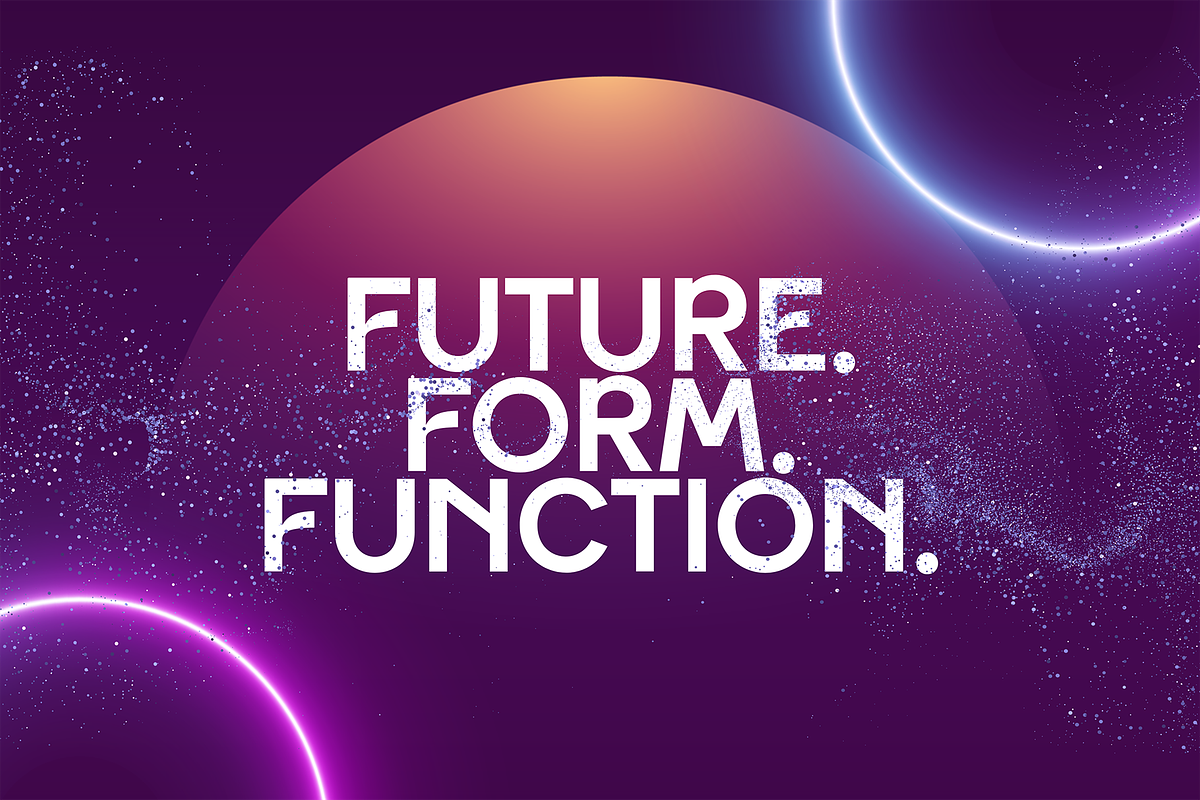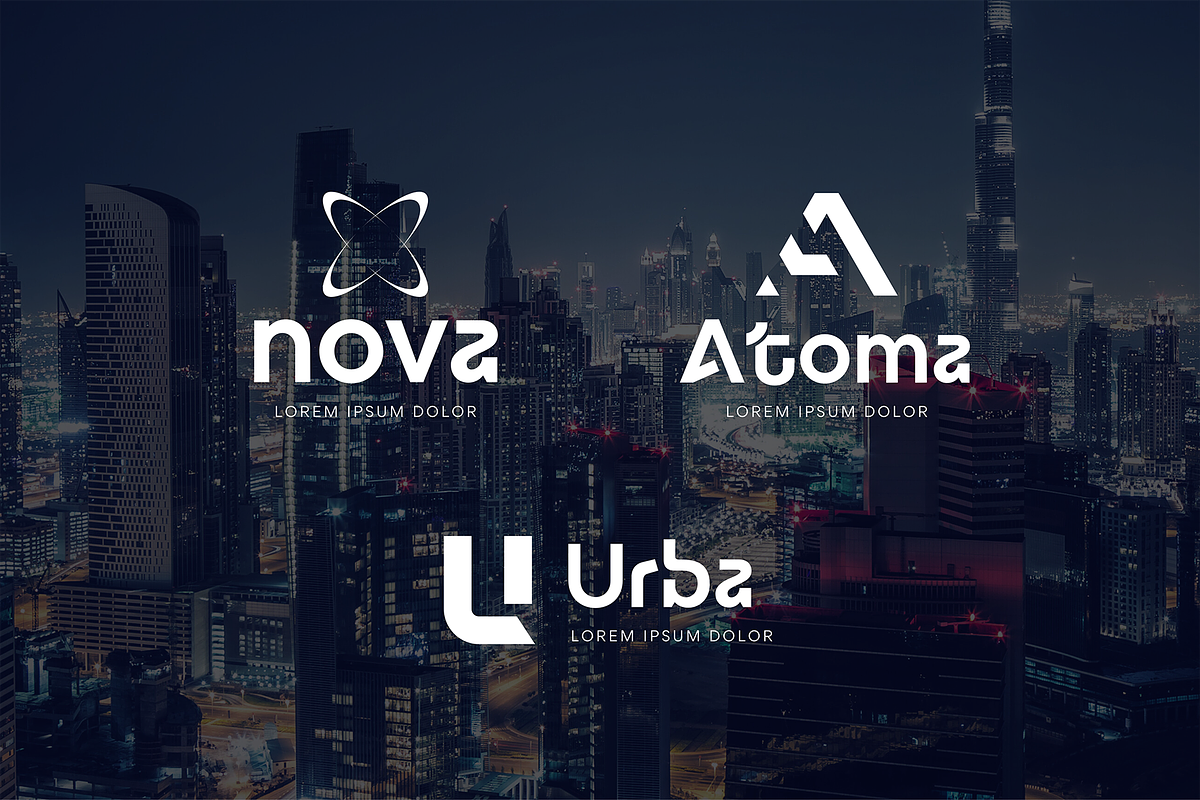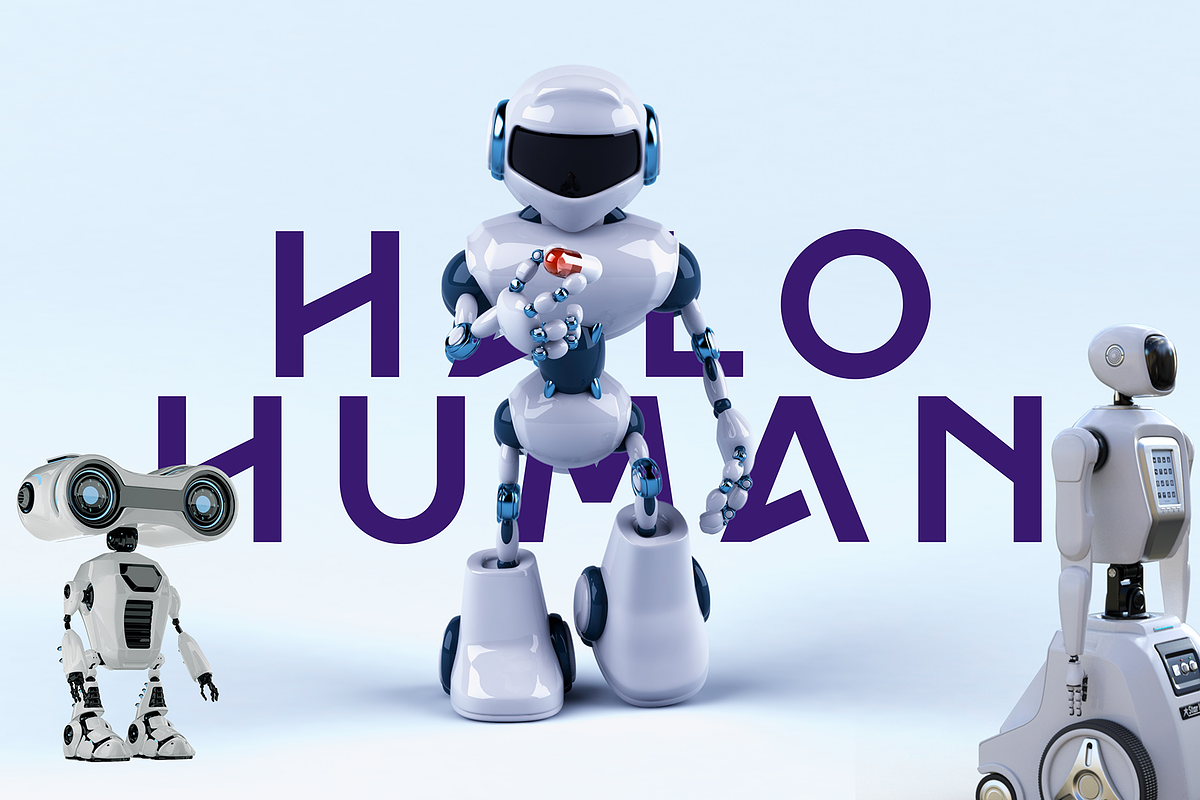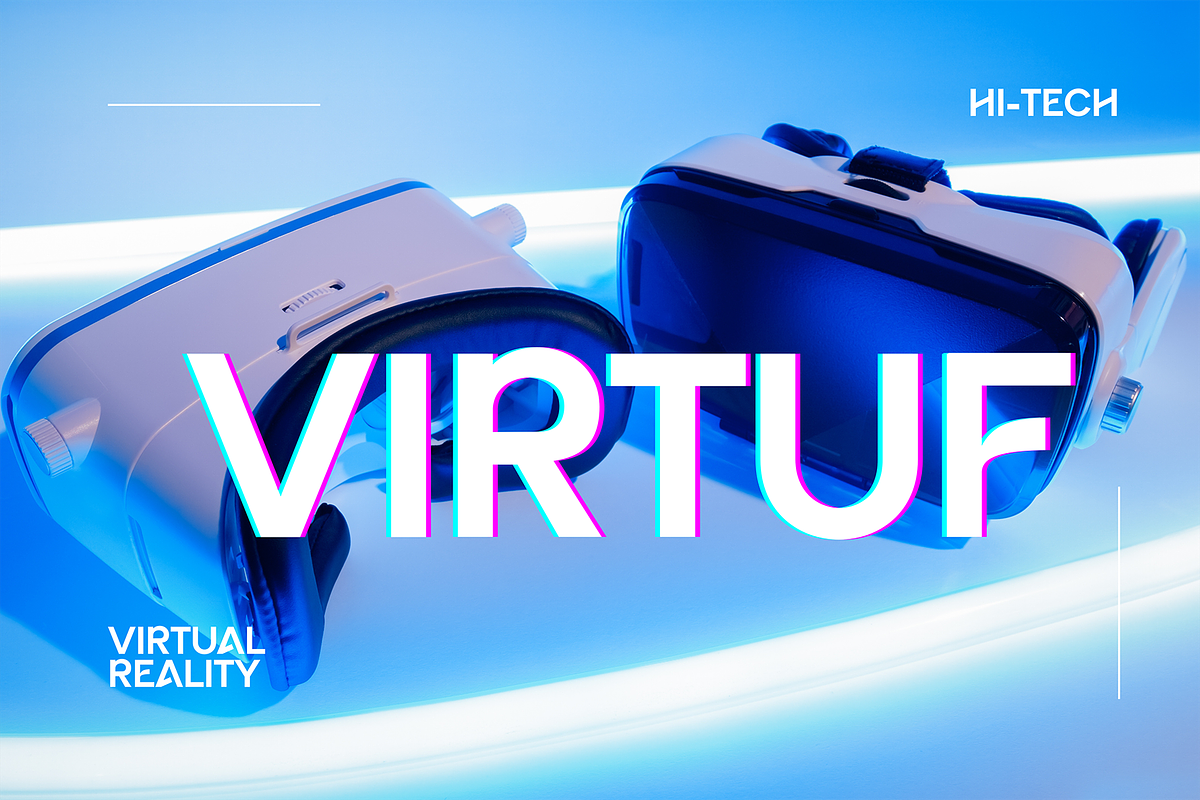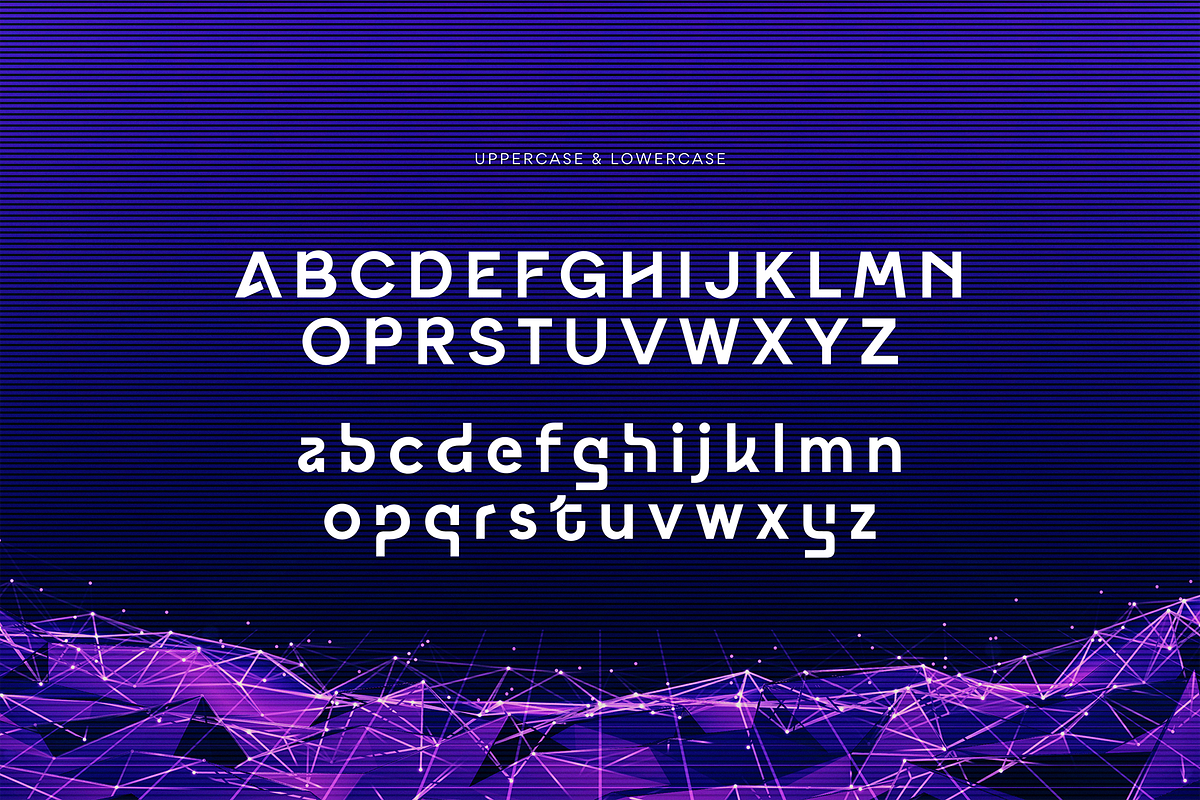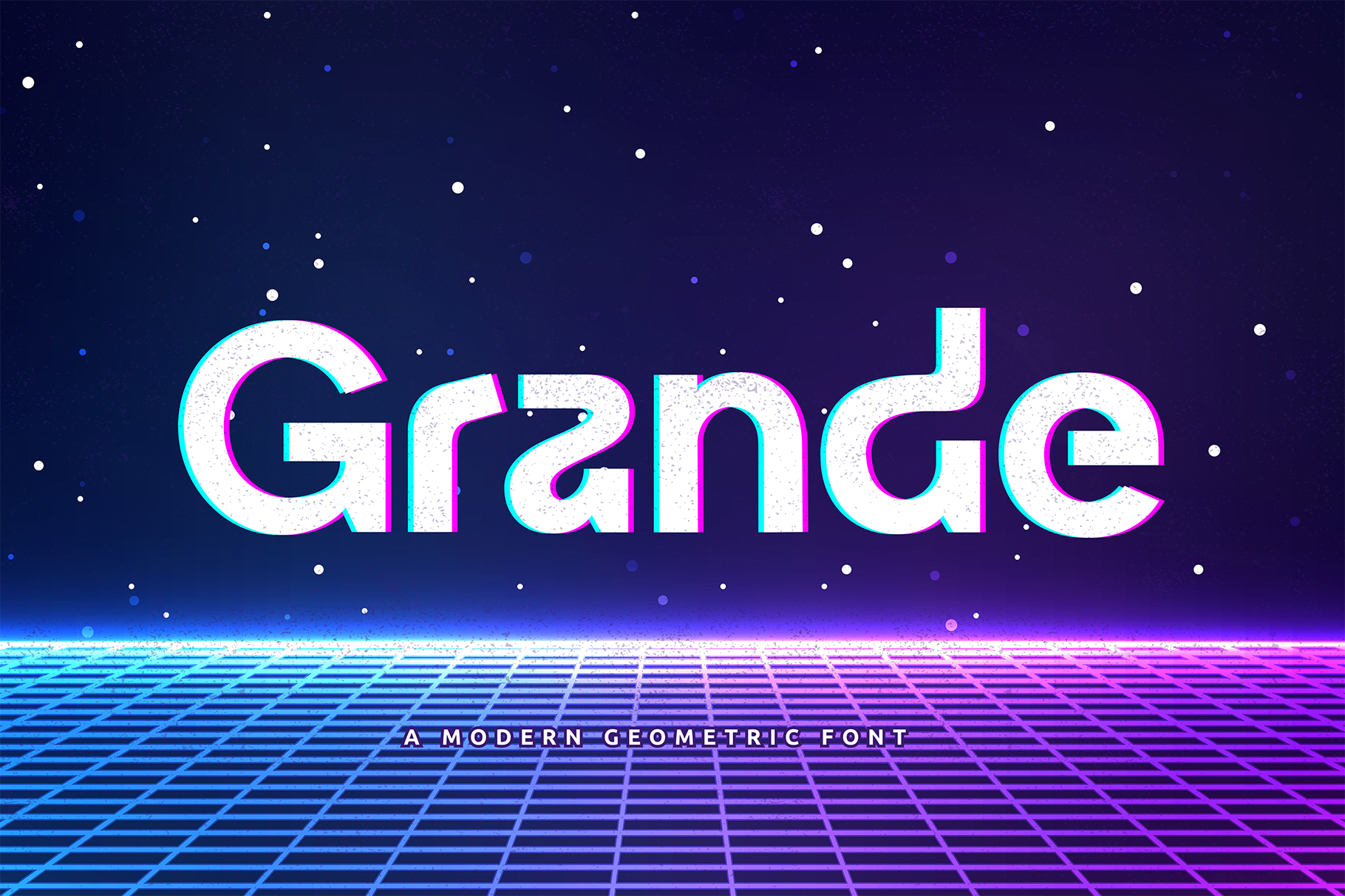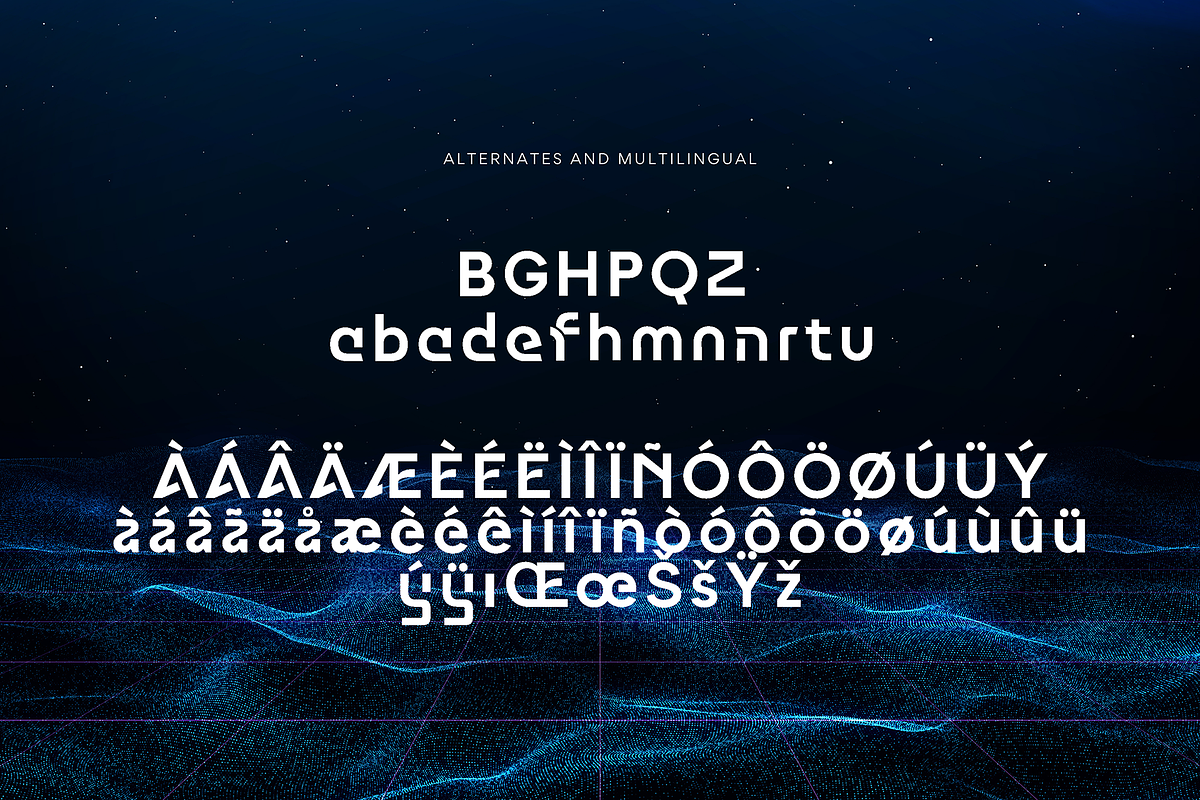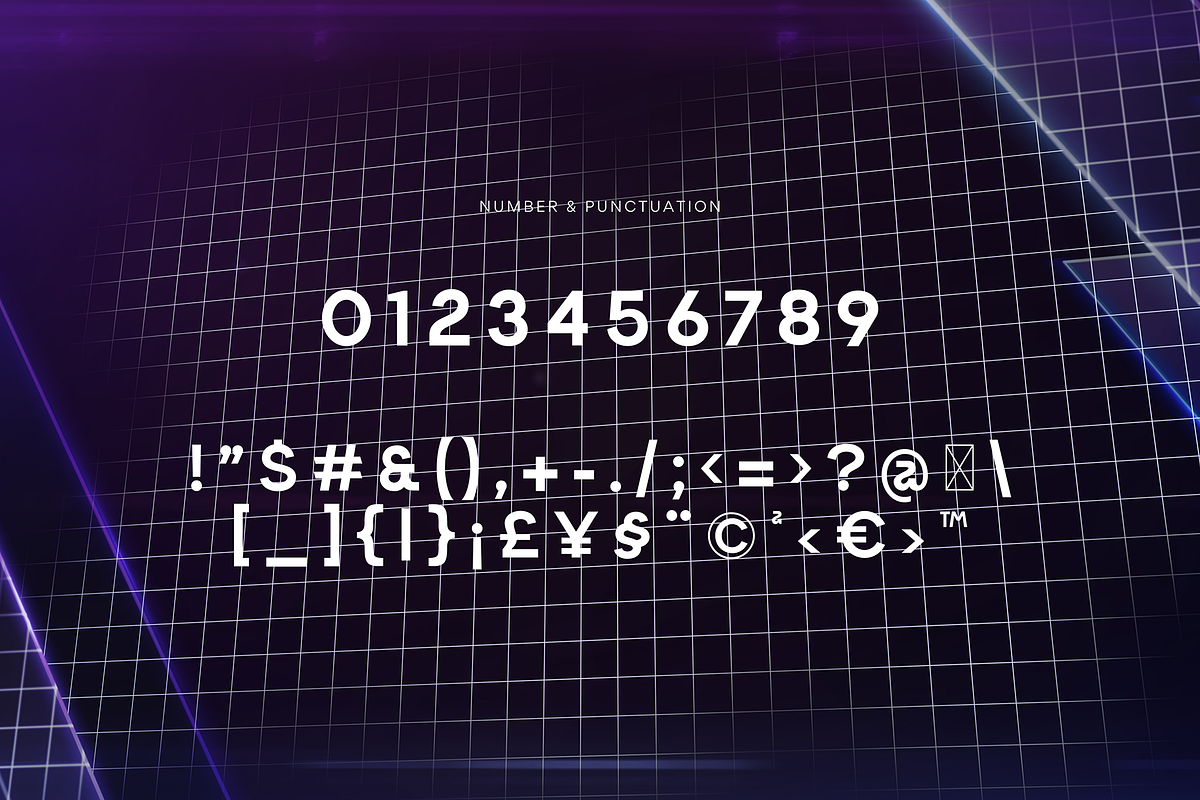
Grande Modern Geometric Font
Rugba Display Font
Rugba display Font is a unique, modern geometric font with a unique, elegant, modern and geometric style. It is a sans serif font perfect for branding projects, logos, social media posts, product packaging, labels, etc.